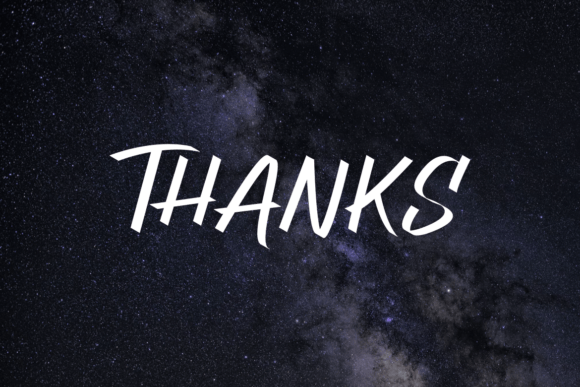
The Ghubly Font: A Bold Statement for Your Designs
I’ll never forget the time I was working on a branding project for a fashion startup, and I was struggling to find the perfect font to capture their edgy, modern vibe. The client wanted something that would stand out on social media, and I was determined to deliver. That’s when I stumbled upon the Ghubly font, and it completely transformed my design. In this article, I’ll share my experience with Ghubly, its features, and how to make the most of it in your designs.
An Honest Review of Ghubly
Ghubly is a modern handwritten font that has won my heart with its bold strokes and striking, angular design. Here are what I love about it:
- ✨ Confidence and energy: Ghubly exudes a sense of confidence and energy, making it perfect for logos, headlines, posters, and branding projects.
- ✅ Contemporary style: Its modern design makes it stand out in any context, whether you’re designing for fashion, tech, or an adventurous theme.
- 💥 Dynamic and handcrafted: Ghubly’s handcrafted character gives it a unique, dynamic feel that’s hard to find in other fonts.
However, I do have to mention a few quirks:
- 🤔 Limited use in body text: Ghubly is best used for headlines and titles, as it can be a bit challenging to read in body text.
- ⚠️ Some glyphs may require adjustment: Depending on the design, some glyphs may require adjustment to ensure they fit perfectly.
A Practical Guide to Using Ghubly
- Experiment with OpenType features, such as Stylistic Alternates, to add more personality to your text.
The Backstory of Ghubly
Ghubly was designed by a team of typographers who wanted to create a font that would capture the essence of modern design. Inspired by the urban landscape and the world of fashion, they crafted a font that’s bold, dynamic, and confident. Whether you’re designing for a fashion brand or a tech startup, Ghubly is the perfect choice.
Q: What type of projects is Ghubly best suited for?
A: Ghubly is perfect for logos, headlines, posters, and branding projects that require a bold, modern font.
Q: Can I use Ghubly for body text?
A: While Ghubly can be used for body text, it’s best suited for headlines and titles due to its bold, angular design.
Q: Does Ghubly support OpenType features?
A: Yes, Ghubly supports OpenType features, such as Stylistic Alternates, Glyphs, and Stylistic Sets, which can be accessed in compatible design software.
Q: Is Ghubly suitable for digital and print designs?
A: Yes, Ghubly is designed to work well in both digital and print designs, making it a versatile font for various applications.